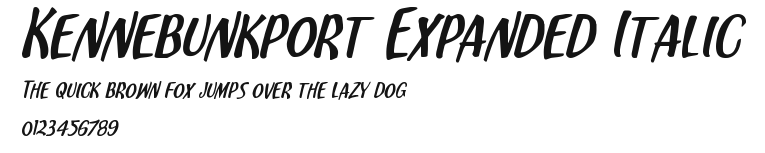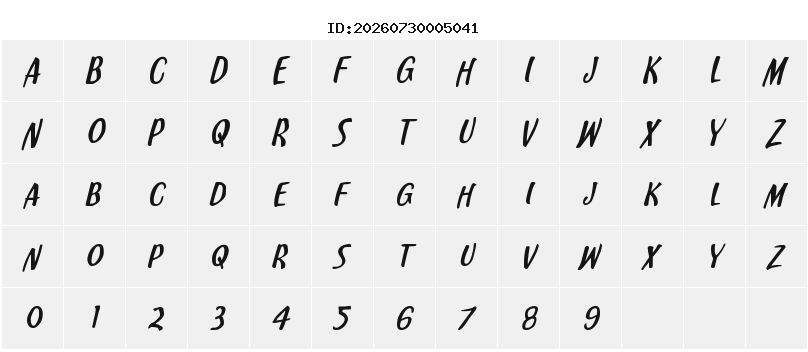
Kennebunkport Expanded Italic Preview
• Font Name: Kennebunkport Expanded Italic
• Font Style: Expanded Italic
• Full Font Name: Kennebunkport Expanded Italic
• PostScript Name: KennebunkportExpandedItalic
About Kennebunkport Expanded Italic.ttf
Kennebunkport Expanded Italic.ttf is a modern, elegant sans-serif font designed for ultimate readability and visual harmony. Perfect for branding, headlines, web design, and print materials.